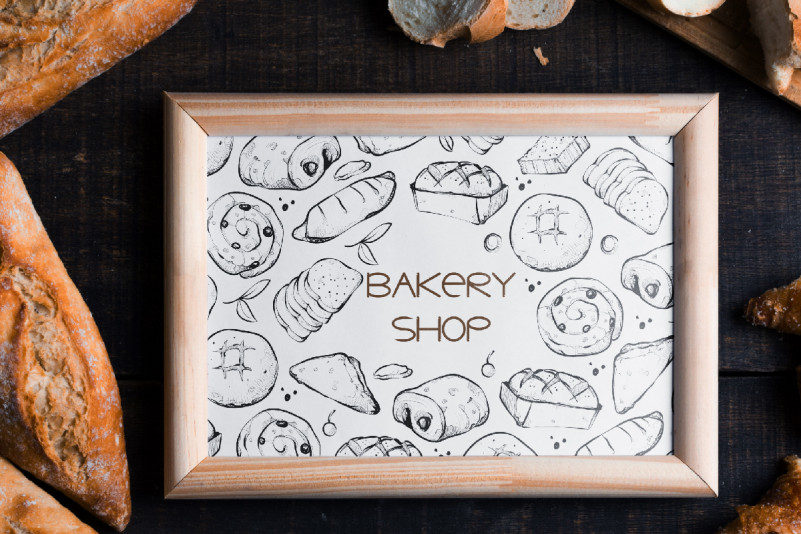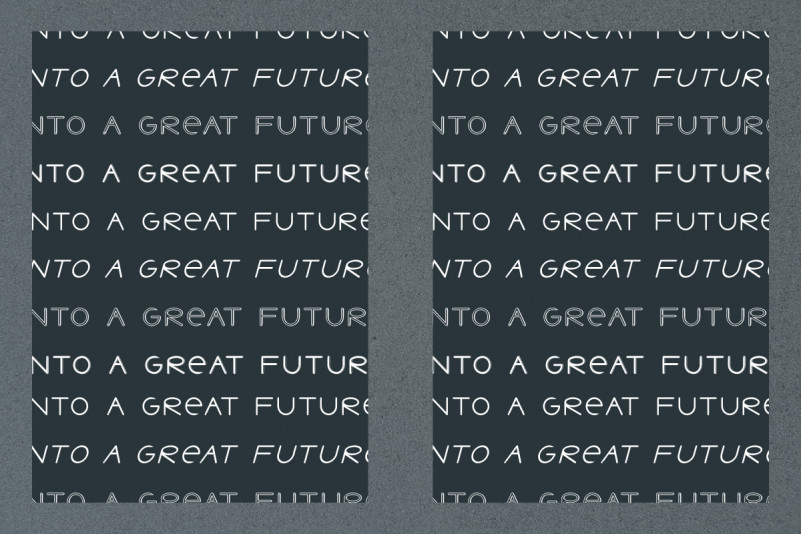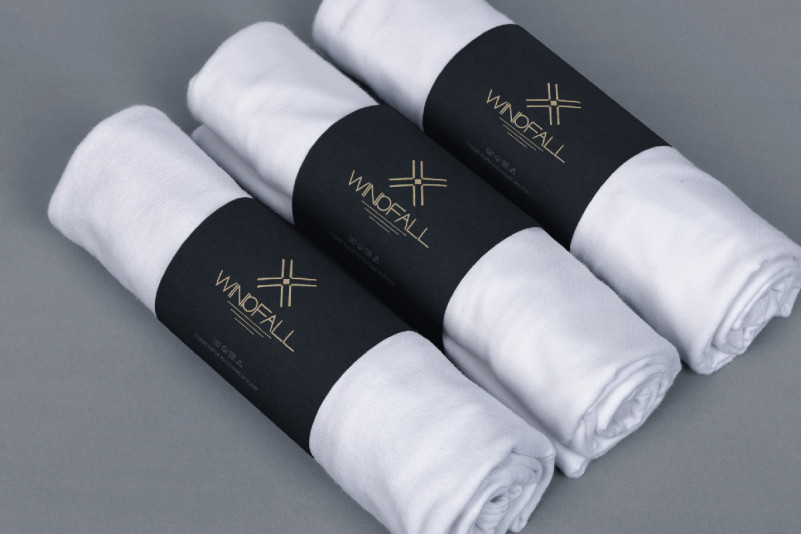
Say Next Font
Say Next Sans Serif Font
This is a decorative Sans Serif typeface family, inspired from move on movement in modern life designed by RaisProject. It is our new typeface on the market. It has unique, modern and stylish style.